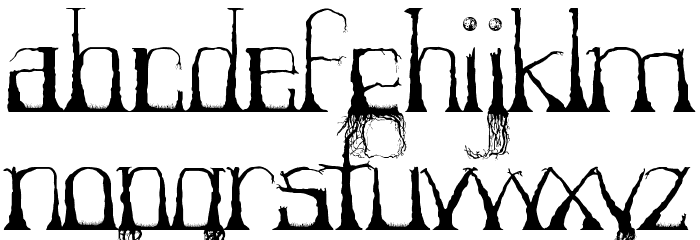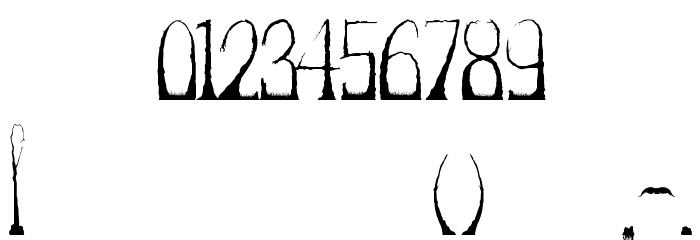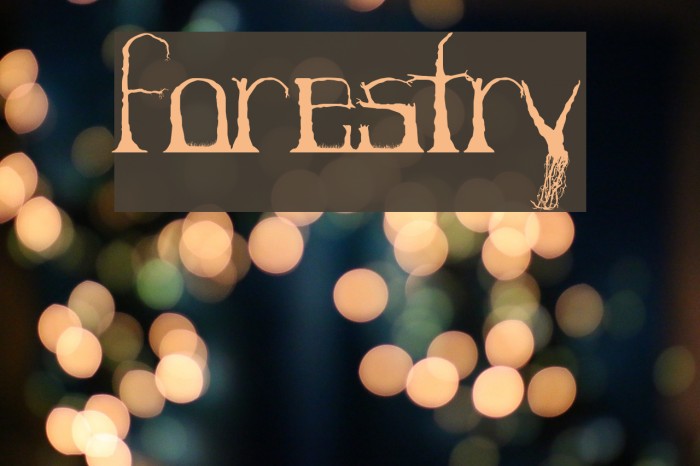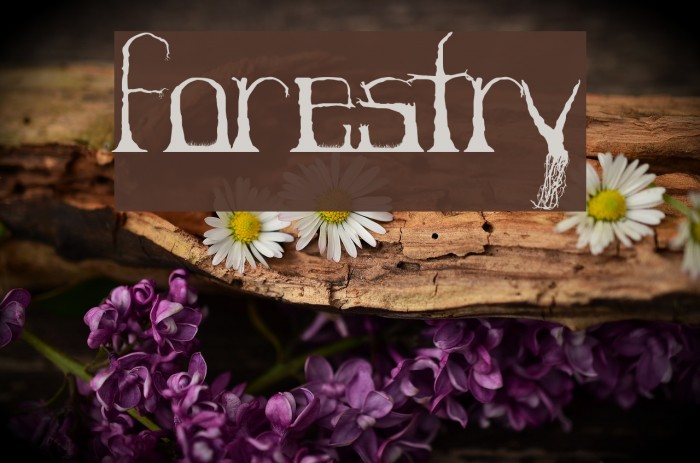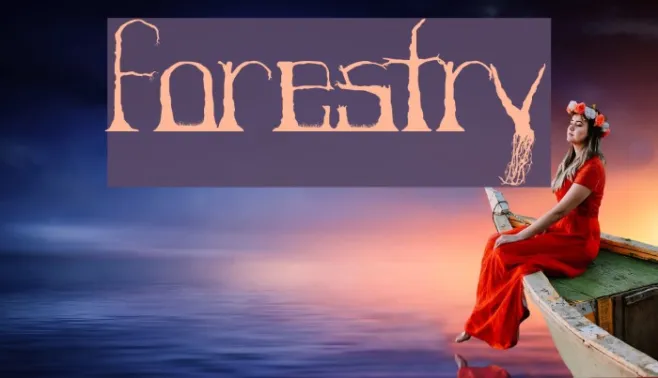
Forestry Font
This font features a unique, organic design that mimics the appearance of tree branches and roots. The characters have a natural, flowing quality with irregular, jagged edges that evoke a sense of wilderness and untamed nature. The uppercase and lowercase letters maintain a consistent style, with elongated vertical strokes and intricate detailing that resemble the texture of bark. Numbers and special characters follow the same aesthetic, making the font cohesive and visually striking. The overall appearance is both artistic and unconventional, perfect for projects that require a touch of the natural world.
An organic, nature-inspired font with intricate, branch-like detailing.
- Proposed Projects: Ideal for environmental campaigns, nature-themed posters, artistic projects, and eco-friendly branding.
- Use Case: Logos, Posters, Artistic Projects